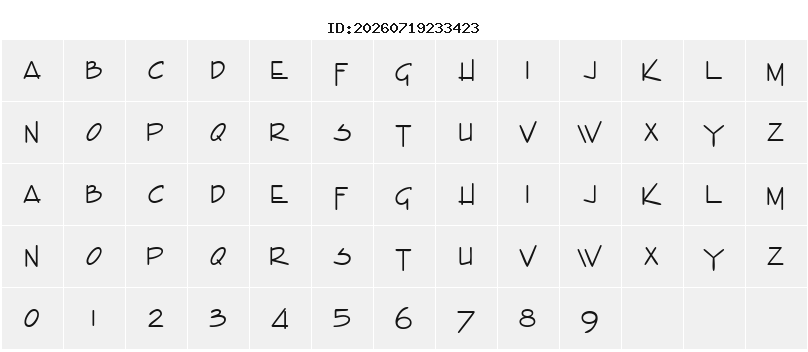
EnvalueDB Preview
• Font Name: EnvalueDB
• Font ID: Altsys Fontographer 4.0.3 EnvalueDB Normal
• Full Font Name: EnvalueDB Normal
• Version: Altsys Fontographer 4.0.3 8.9.1994
• PostScript Name: EnvalueDBNormal
• Character Count: 216
About EnvalueDB.ttf
EnvalueDB.ttf is a modern, elegant sans-serif font designed for ultimate readability and visual harmony. Perfect for branding, headlines, web design, and print materials.